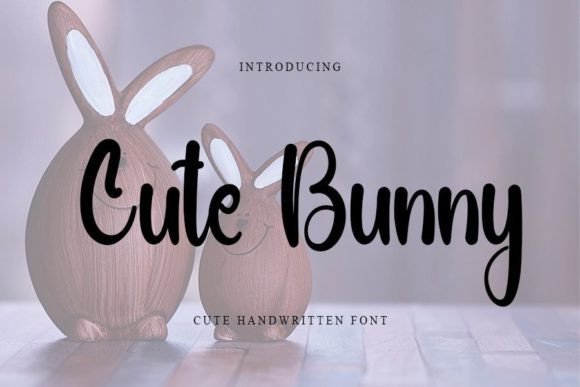
Cute Bunny Font: The Perfect Companion for Your Creative Projects
Have you ever been working on a project and suddenly, a spark of inspiration hits you? Maybe it’s a brand new idea or a fresh perspective, but whatever it is, it always feels amazing. That’s exactly what happened to us when we stumbled upon the Cute Bunny Font. This beautiful handwritten font is more than just a design tool – it’s a key to unlocking your creativity and bringing your ideas to life.
With its elegant touch and timeless style, the Cute Bunny Font is perfect for designers who want to add a personal touch to their projects. Whether you’re creating a logo, a greeting card, or a social media graphic, this font is sure to make your design stand out. Its unique and distinct style makes it a valuable addition to any designer’s toolkit, and we’re excited to share it with you.
Cute Bunny Font Key Features
- Font Family: Cute Bunny Font
- Unique Characteristics: Hand-drawn design, Whimsical and playful feel, Perfect for children’s books, nursery decorations, and other kid-friendly applications
Cute Bunny Font Review
Overall, I think the Cute Bunny Font is a fun and playful addition to any design project. ✨ The rounded edges and cute bunny characters give it a whimsical feel that’s perfect for kids’ books, nursery decor, and other family-friendly themes. It’s also a great choice for social media graphics, where a lighthearted touch can help grab attention.
One of the things I like most about this font is its versatility. ✨ It comes in a range of sizes and styles, from bold and bright to delicate and subtle. This makes it easy to use in a variety of contexts, from large headlines to small text.
- ⚠️ Limited use outside of family-friendly themes: While the font is cute and playful, it may not be suitable for more serious or professional projects.
- ⚠️ Limited character set: The font may not include all the characters you need for certain languages or special cases.
- ⚠️ Not ideal for small text: While the font is great for headlines and titles, it may be difficult to read in small text sizes.
Overall, I think the Cute Bunny Font is a great choice for designers who want to add a touch of whimsy to their projects. While it has some limitations, its versatility and charm make it a fun and engaging addition to any design.
Cute Bunny Font is perfect for:
– Children’s party invitations and decorations.
– Easter-themed graphics and designs.
– Whimsical and playful branding and marketing materials.
Tips for Getting the Most Out of Cute Bunny Font
– Use Cute Bunny Font in conjunction with other playful and whimsical design elements to create a cohesive look.
– Experiment with different font sizes and colors to add visual interest.
– Consider using Cute Bunny Font for headings and titles to draw attention and create a focal point.
Alternatives to Cute Bunny Font
Great Vibes is a modern, cursive font that conveys a sense of friendliness and approachability. It’s perfect for use in headings, titles, and short paragraphs where a playful yet sophisticated feel is desired.
Compared to Cute Bunny Font, Great Vibes is more elegant and less childlike, making it suitable for a wider range of design applications.
Cuprum
Cuprum is a sans-serif font with a touch of whimsy, making it a great alternative to Cute Bunny Font for projects that require a modern, yet playful feel.
Unlike Cute Bunny Font, Cuprum is more versatile and can be used in both headings and body text, making it a great choice for designers who want a single font to cover multiple design elements.
Lobster is a script font that’s perfect for use in headings, titles, and short paragraphs where a touch of elegance and sophistication is desired.
Compared to Cute Bunny Font, Lobster is more refined and less childish, making it suitable for use in high-end design applications, such as luxury branding and advertising.